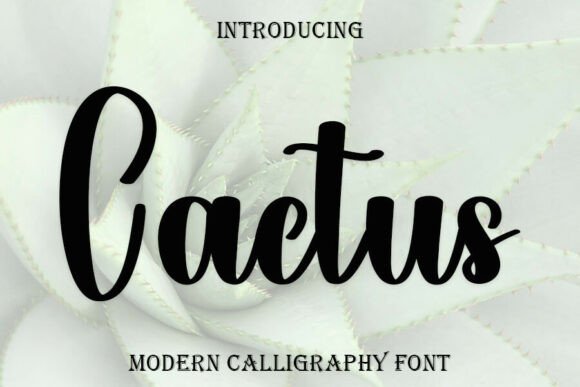
The Birth of a Unique Design: Cactus Font
Do you remember that moment when you stumbled upon a font that instantly sparked a creative idea in your mind? For me, it was a handwritten note from a friend, scribbled with a quirky font that made me want to create something similar. Little did I know, I was about to discover the beauty of Cactus Font – a delicate handwritten font that’s perfect for adding a touch of uniqueness to your designs.
Cactus Font is more than just a font; it’s a tool for designers to express their creativity and add a personal touch to their projects. Whether you’re writing letters, crafting invitations, or labeling food products, Cactus Font is the perfect companion to help you stand out from the crowd. With its carefree and whimsical feel, this font is a valuable addition to any designer’s toolkit.
Cactus Font Key Features
- Character Set: The font includes a comprehensive set of characters, including Latin, Cyrillic, and Greek alphabets, as well as a range of punctuation marks and symbols.
- Unique Characteristics: Cactus Font features a distinctive, hand-drawn design with bold lines and rounded edges, giving it a friendly and approachable feel.
- Language Support: Cactus Font supports a wide range of languages, including English, Spanish, French, German, Italian, Portuguese, and many others.
- Font Weight and Style: The font includes a range of weights and styles, including regular, bold, italic, and bold italic, allowing for a high degree of customization and flexibility.
Cactus Font Review
I recently had the chance to work with the Cactus Font, and I wanted to share my honest thoughts on this unique typeface.
- Cactus Font has a quirky, hand-drawn feel that can add a lot of personality to a design.
- The font is highly customizable, with a wide range of weights and styles to choose from.
- The designer has included a variety of ligatures and swashes, which can add a touch of elegance to certain words and phrases.
- The font is well-suited for use in titles, headings, and other display text where a bold, eye-catching look is desired.
- The font may not be suitable for use in body text, as it can be difficult to read in smaller sizes.
- The hand-drawn feel of the font can sometimes make it look a bit rough or uneven, particularly in larger blocks of text.
- The font may not be suitable for use in formal or professional contexts, as it can come across as a bit playful or whimsical.
Overall, I think the Cactus Font is a fun and creative choice for designers who want to add a bit of personality to their work. While it may have some limitations, it can be a great addition to a design when used thoughtfully and in the right context.
Tip: Use the Cactus Font to add a touch of whimsy to your designs, such as in quotes or titles.
Tip: Use the Cactus Font to create custom logos or graphics with a unique touch.
Tip: Use the Cactus Font to add visual interest to your presentations or documents.
The Cactus Font is perfect for:
- Designing quotes or titles with a whimsical touch.
- Creating custom logos or graphics with a unique style.
- Adding visual interest to presentations or documents.
Compared to Cactus Font, Great Vibes Font has a more refined and sophisticated look, making it a great choice for designers who want to add a touch of elegance to their designs.